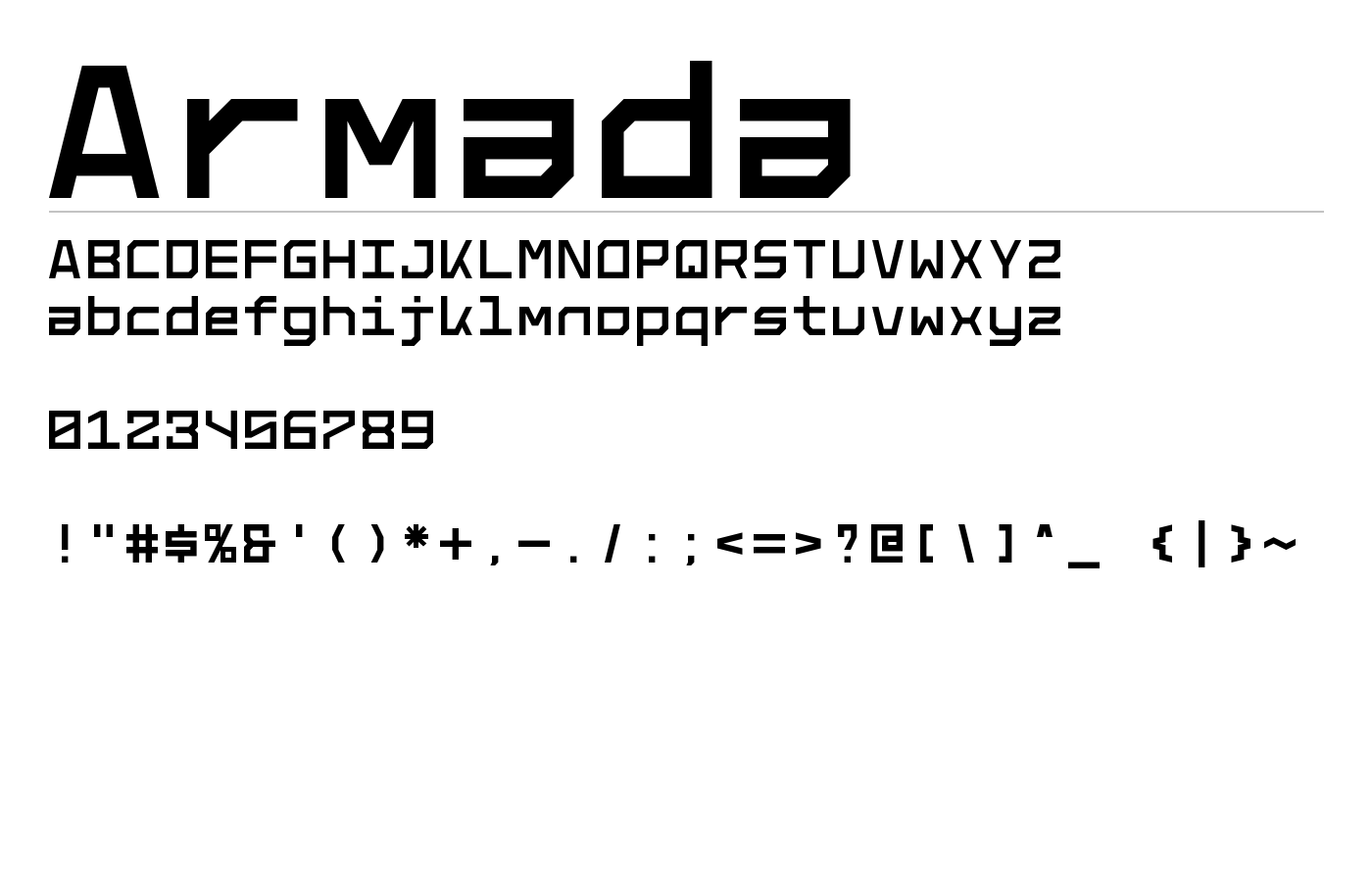
Armada is a modern, angular sans serif font featuring a geometric and technical style with uniform stroke weight and a condensed width. Its sharp, blocky letterforms and distinctive single-story lowercase characters give it a futuristic and industrial feel, making it ideal for tech branding, digital interfaces, and bold headlines where clarity and a strong visual impact are essential.
Armada Font
About Armada Font